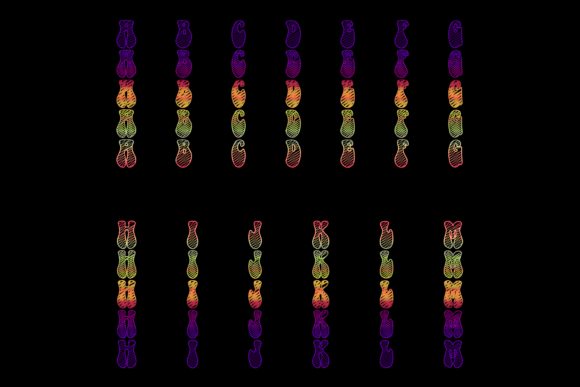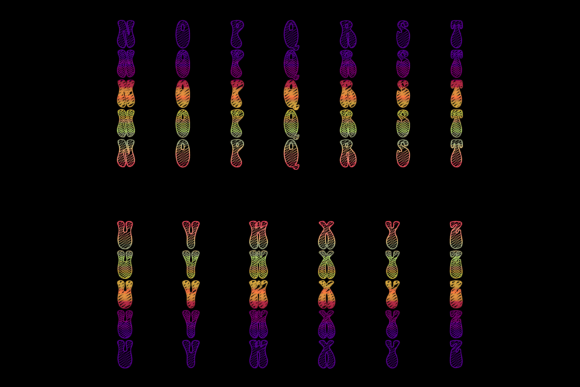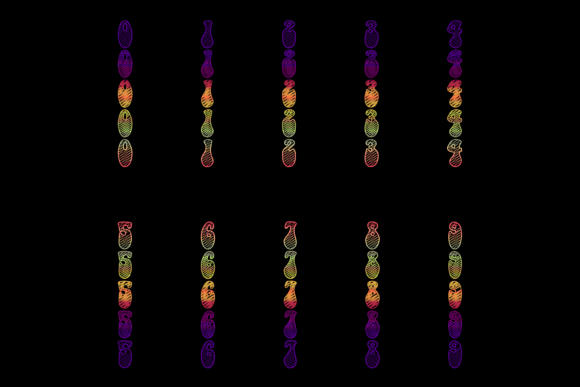
The Funky Flair You’ve Been Missing: Unleashing the Power of Funkadelic Font
You know that moment when you’re brainstorming ideas for a project and suddenly, the perfect font pops into your mind? It’s like a spark of creativity has ignited, and everything falls into place. For many designers, that font is often the key to bringing their vision to life. One such font that has captured the hearts of many is the Funkadelic Font – a typography masterpiece that adds a dash of funk and personality to any design.
This incredible font is not just a pretty face; it’s a valuable tool for designers looking to add a unique touch to their work. Whether you’re working on a custom design, a DIY craft, or simply want to give your projects a stylish makeover, the Funkadelic Font is an amazing choice. Its versatility, combined with its funky flair, makes it a must-have in every designer’s toolkit.
Funkadelic Font Key Features
- Font Family: Funkadelic Font, a unique and stylish font family designed for music and entertainment-related projects.
- Unique Characteristics: Funkadelic Font features a bold, playful, and energetic design, with unique letterforms and ornaments that evoke the spirit of funk music and culture.
Funkadelic Font Review
I recently had the chance to work with the Funkadelic Font, and I must say, it’s a mixed bag. ✨ There are some aspects where it truly shines, but there are also some limitations that held me back. Let’s dive in.
- ✨ Unique, funky vibe: The Funkadelic Font has a distinct personality that’s perfect for projects that need a bit of edge.
- ✨ Great for titles and headings: The font’s bold lines and playful curves make it ideal for grabbing attention and setting the tone for your design.
- ✨ Good legibility: Despite its quirky appearance, the Funkadelic Font is relatively easy to read, even at smaller sizes.
- ⚠️ Limited versatility: The Funkadelic Font is best suited for bold, eye-catching titles and headings. It’s not the best choice for body text or more formal designs.
- ⚠️ Limited character set: I found some characters to be missing or poorly formed, which can be a problem for designers who need to use the font for a wide range of languages.
- ⚠️ Not ideal for small text sizes: While the font is readable at larger sizes, it can become quite fuzzy and difficult to read at smaller sizes.
The Funkadelic Font is a fun, attention-grabbing font that’s perfect for projects that need a bit of flair. However, its limitations make it less versatile than some other fonts on the market. If you’re looking for a bold, eye-catching font for titles and headings, the Funkadelic Font is definitely worth considering. But for more formal or complex designs, you may want to look elsewhere.
For the best results, use the Funkadelic font in bold or italic styles to add emphasis.
This font is ideal for use in graphic design, music-related projects, and retro-themed designs.
1. Music festival posters and flyers.
2. Retro-themed social media graphics.
3. Band logos and merchandise.
Alternatives to Funkadelic Font
Pacifico is a beautiful, elegant script font perfect for creating a luxurious and sophisticated look. It’s ideal for wedding invitations, branding, and other high-end designs. Compared to Funkadelic Font, Pacifico is more refined and less bold, making it suitable for projects that require a touch of class.
Great Vibes is a modern script font with a fun and energetic feel. It’s great for creating a lively atmosphere in designs, such as event promotions, party invitations, and social media graphics. While Funkadelic Font is more playful, Great Vibes is more dynamic and versatile, making it a great choice for projects that need a bold statement.
Alex Brush is a elegant, handwritten font that’s perfect for creating a personal and intimate feel in designs. It’s ideal for projects like love letters, wedding stationery, and other heartfelt expressions. Compared to Funkadelic Font, Alex Brush is more delicate and less bold, making it suitable for projects that require a touch of warmth and personality.